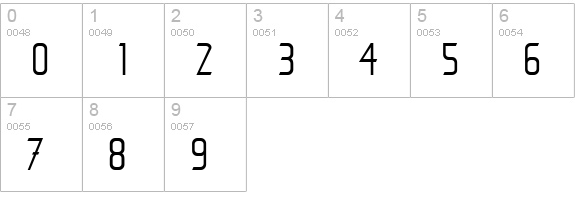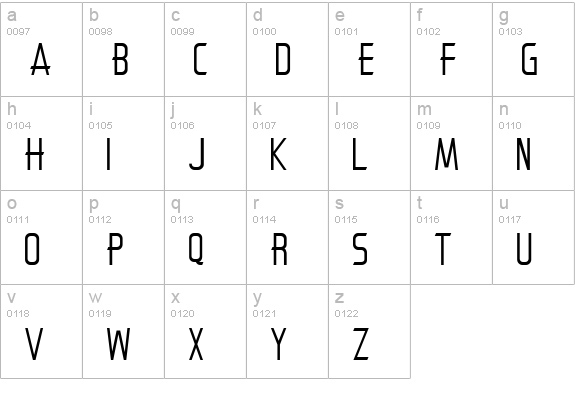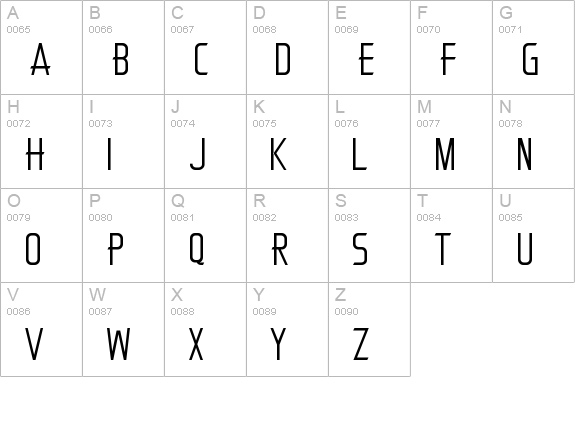
The Antartic font is a sleek and modern typeface that exudes a sense of sophistication and elegance. With its clean lines and stylish design, this font is perfect for a wide range of projects, from branding to editorial design. Its timeless appeal makes it a versatile choice for any design need. And the best part? Antartic font is available for free download at FontsMarket.com! Embrace the beauty and versatility of this font without breaking the bank. Whether you're a designer looking to add a touch of class to your projects or a business owner wanting to elevate your branding, Antartic font is the perfect choice. Download it today and see the difference it can make in your designs.